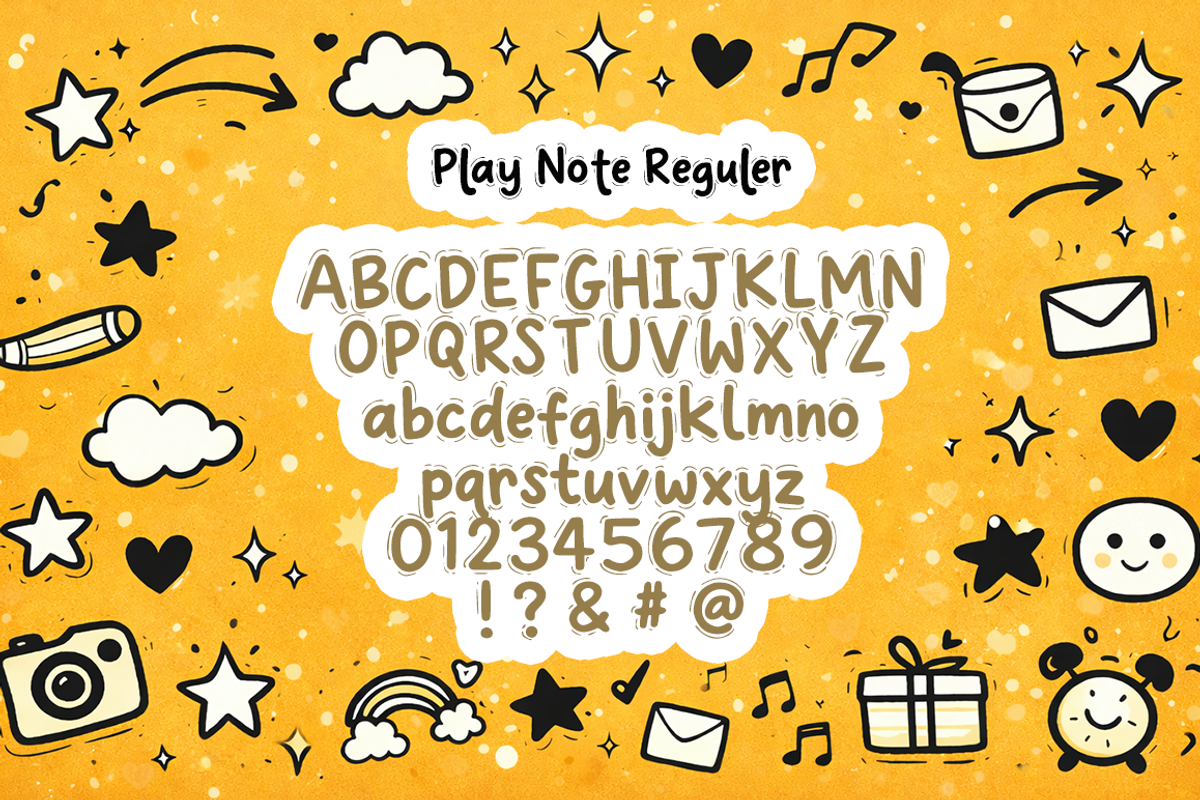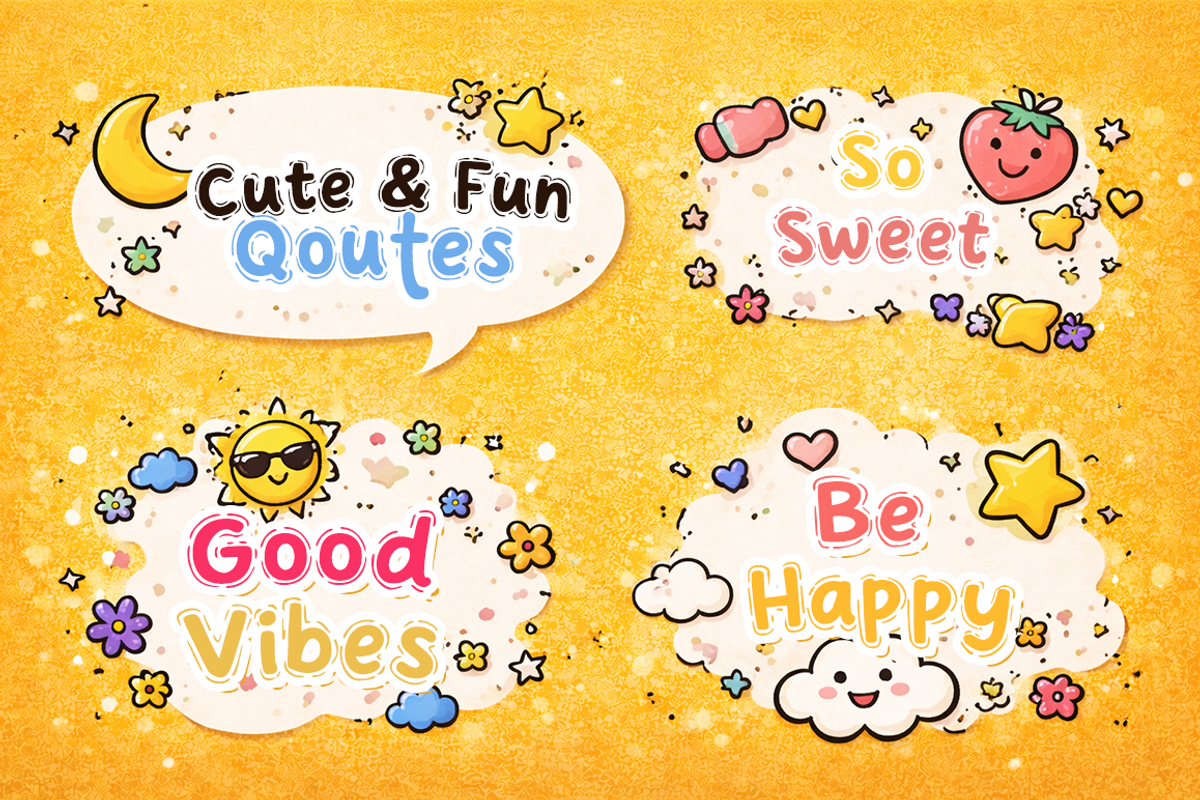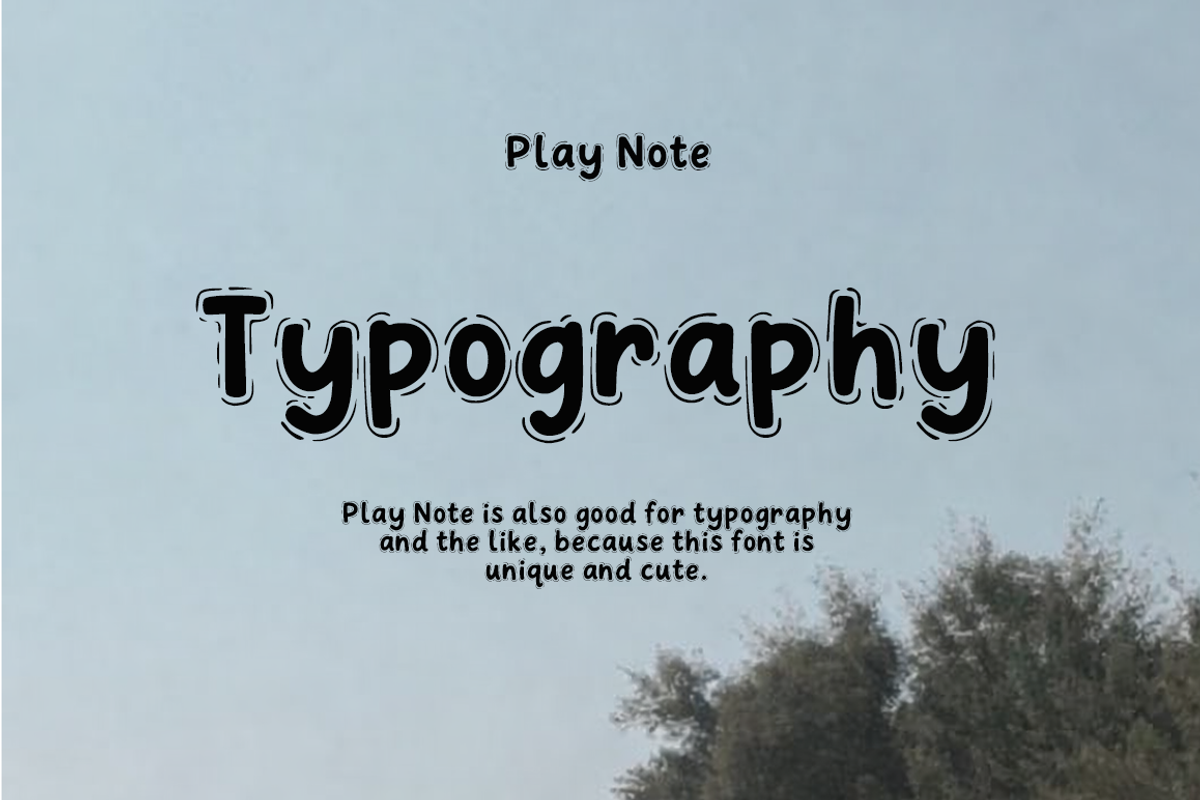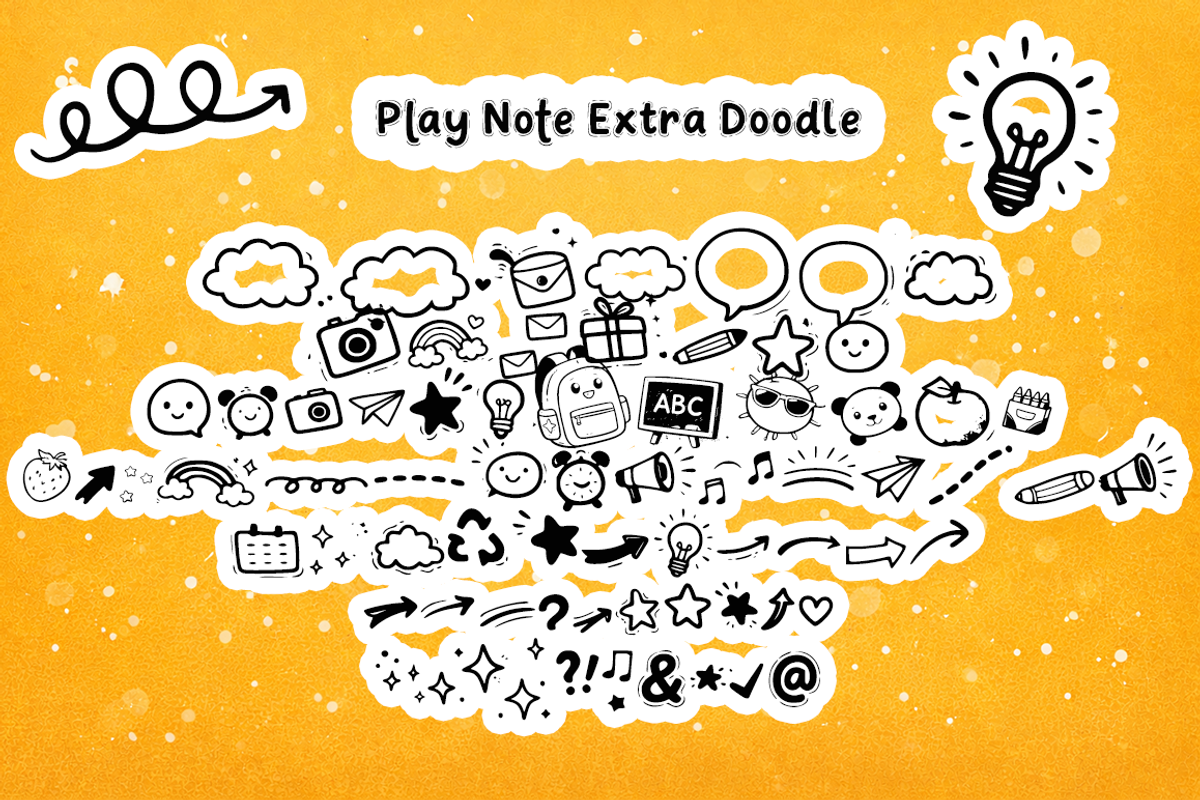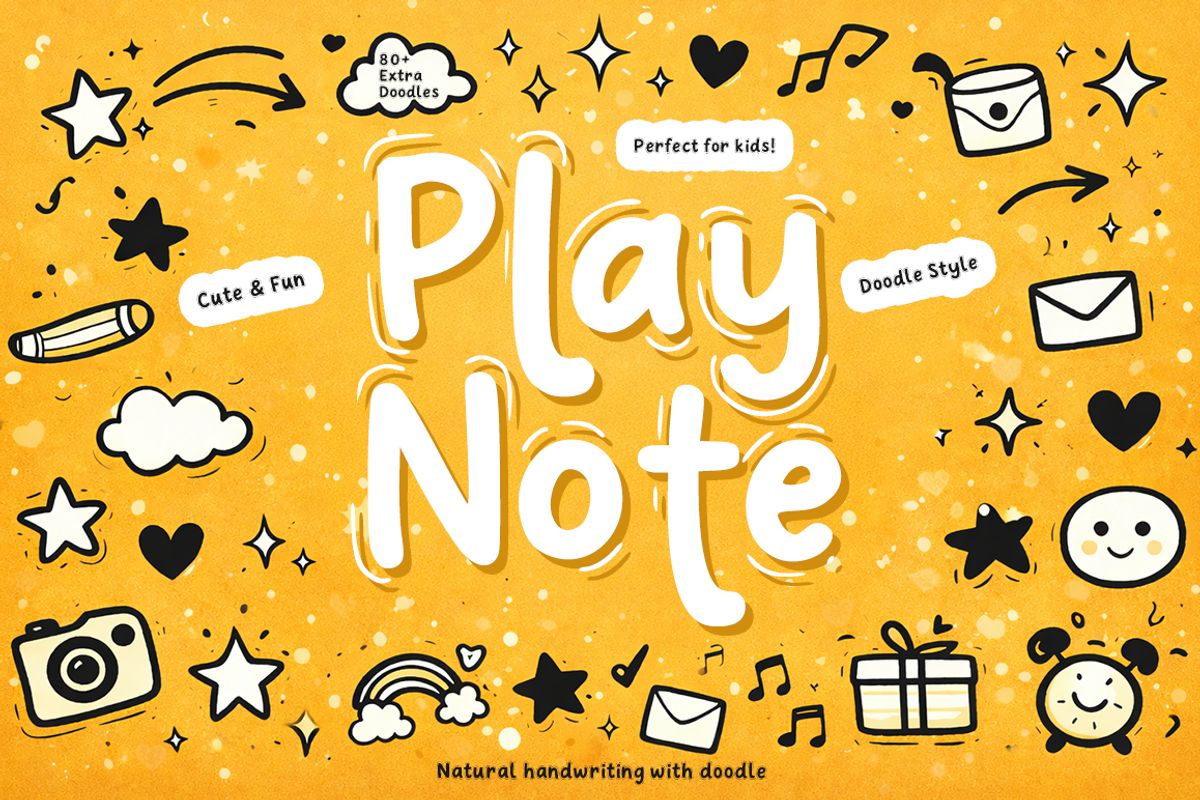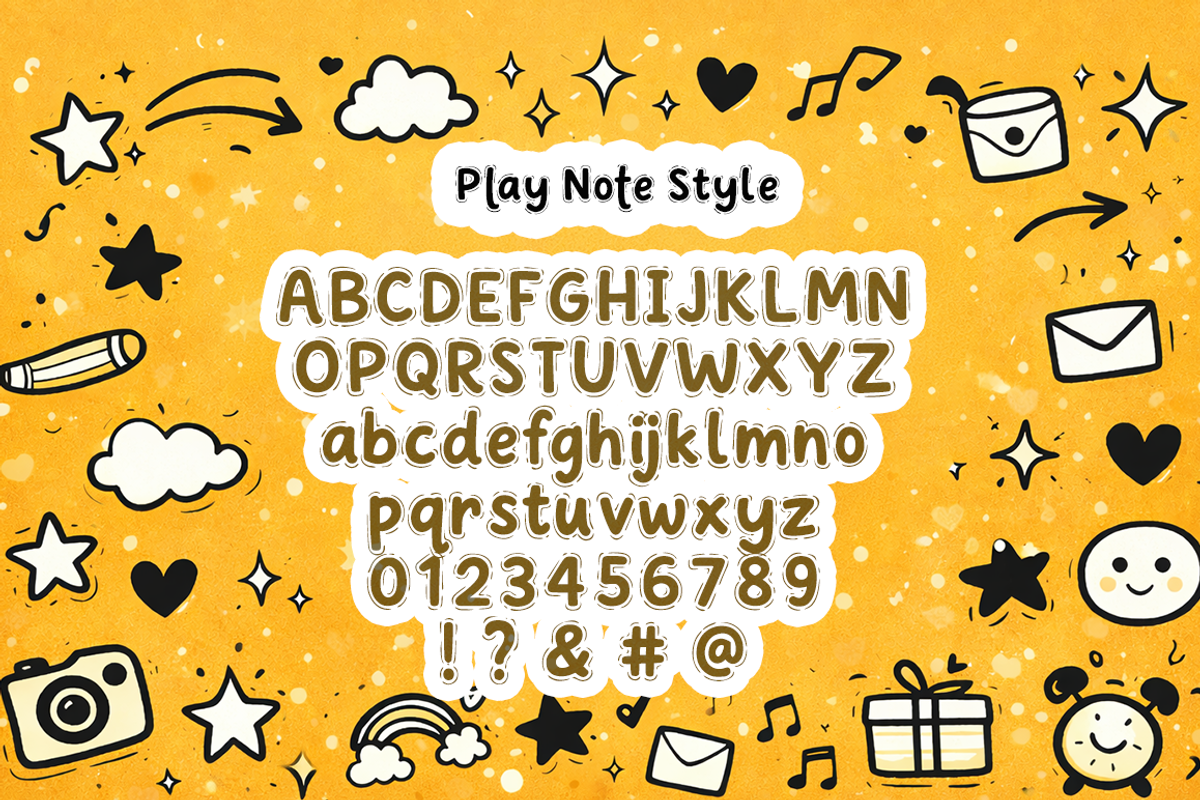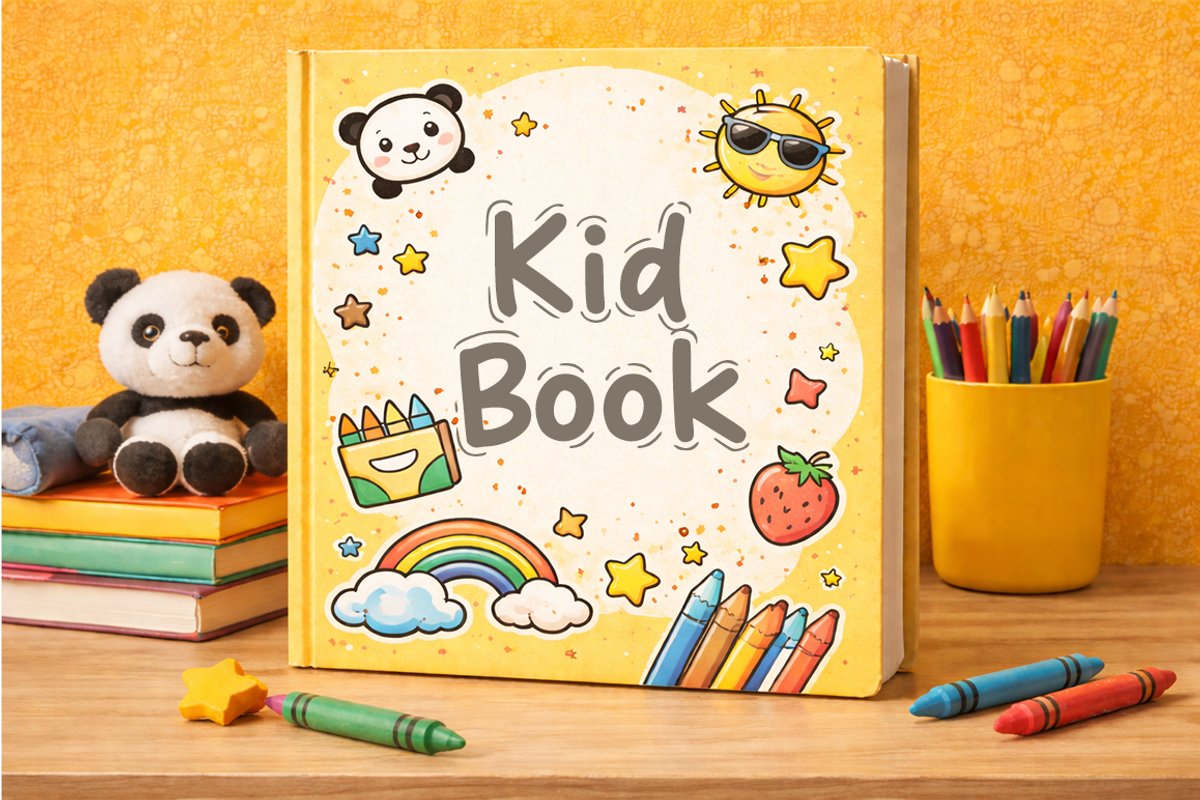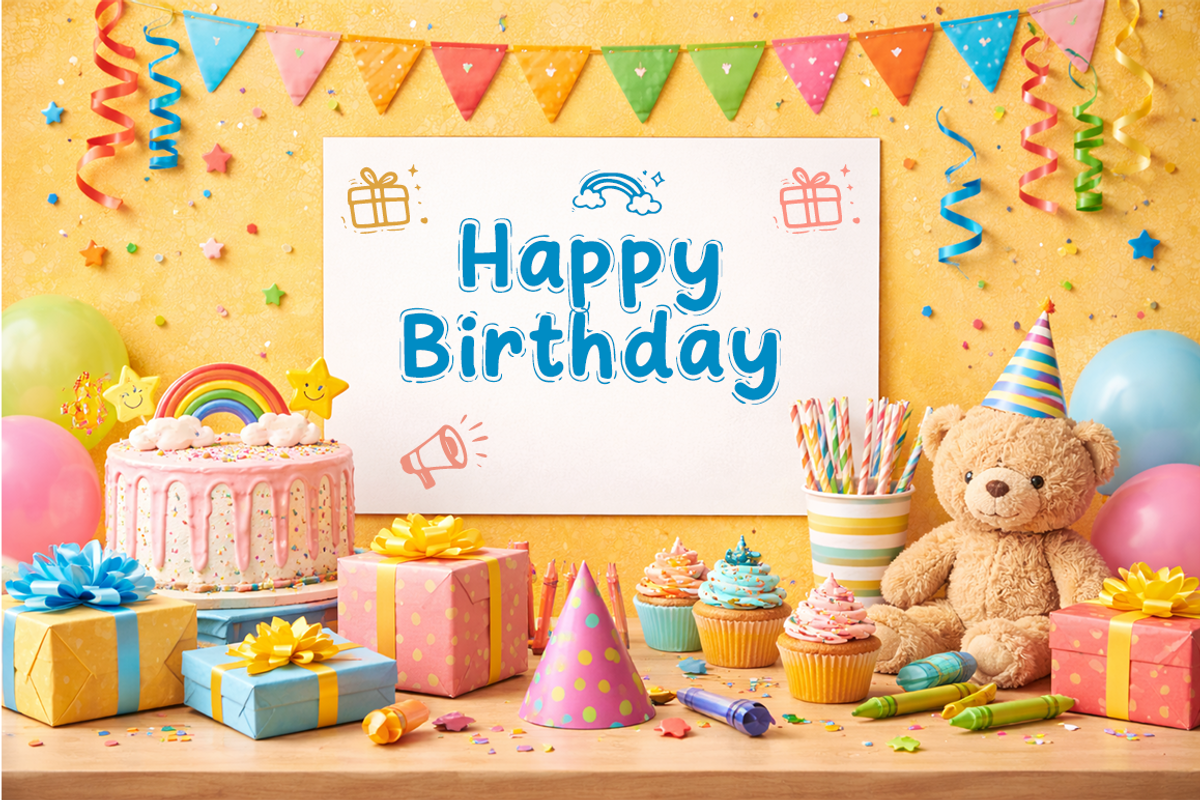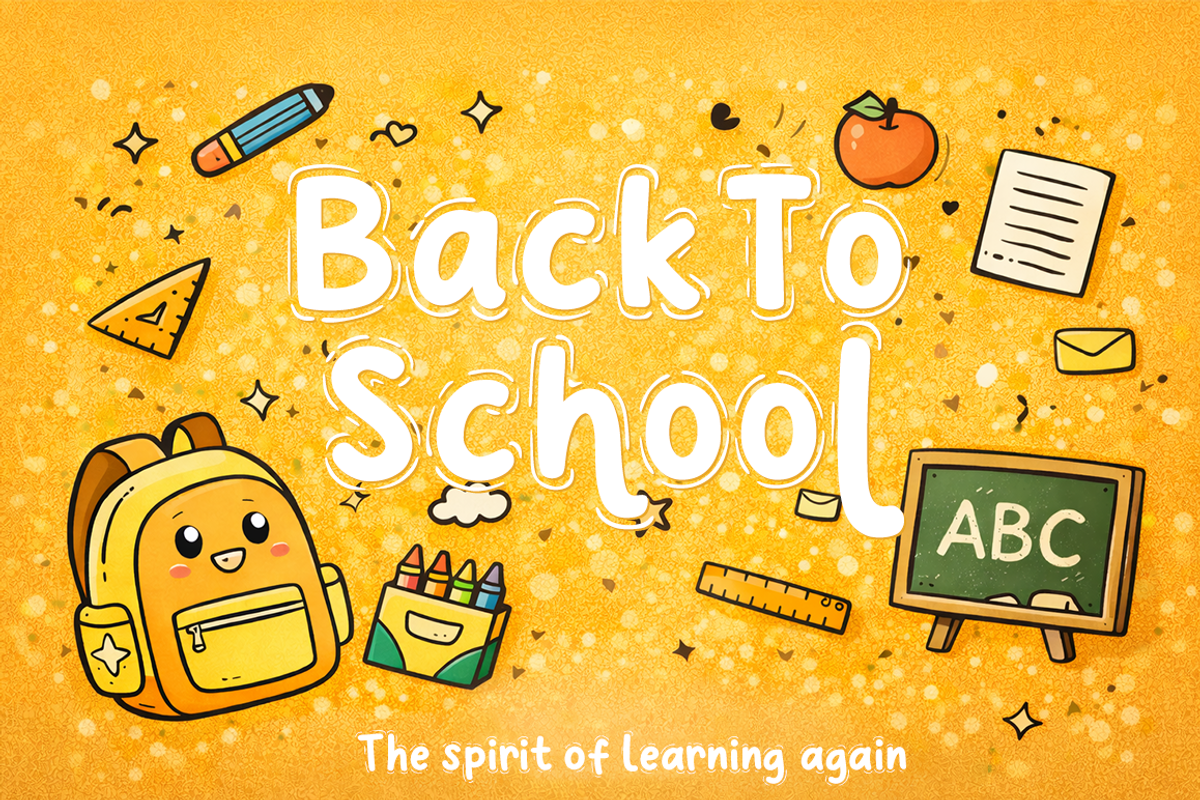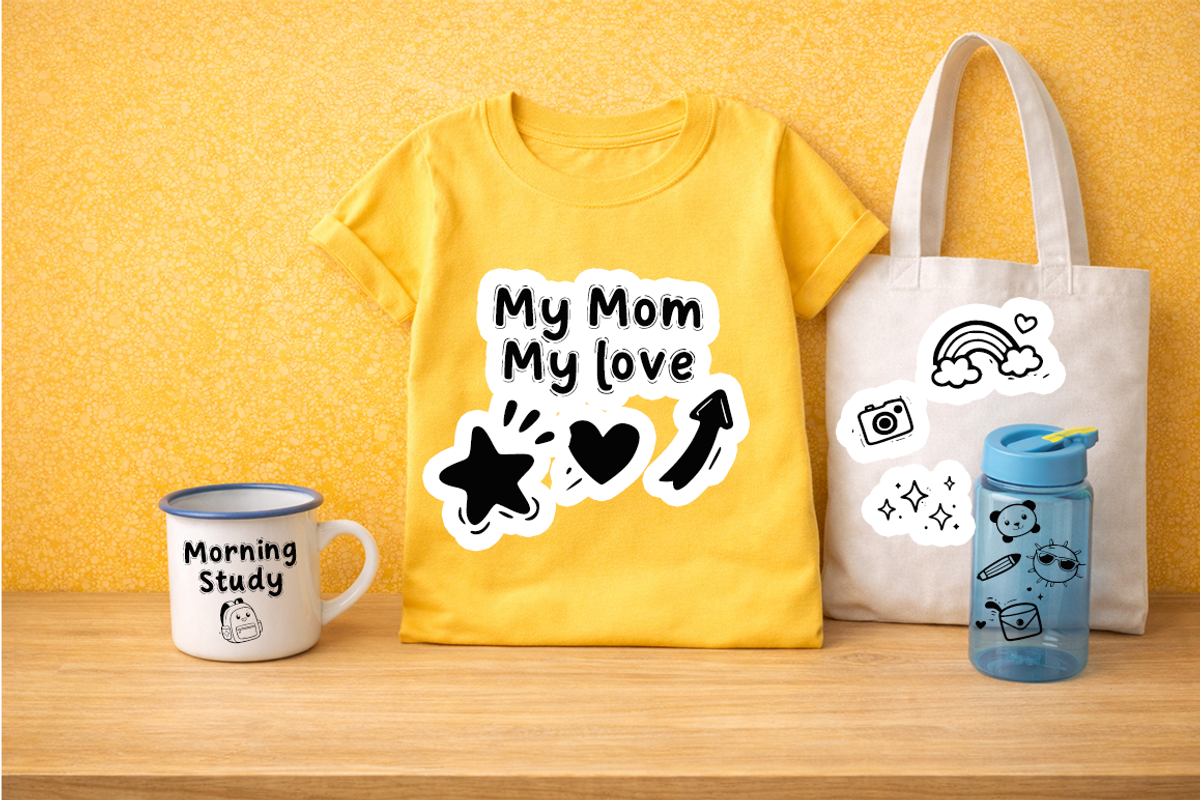
Play Note – Cute Doodle Handwritten
Play Note – Cute Doodle Handwritten Font (2 Styles)
Play Note is a cute and playful handwritten font family featuring two different styles with a fun doodle character. Designed for children-focused and cheerful designs, this font brings a friendly, joyful, and creative feel to every project.
With rounded letterforms and a natural handwritten look, Play Note is perfect for playful layouts while remaining clear and easy to read.